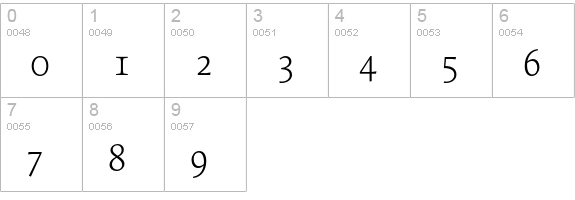
Proforma-Light is a refined, elegant variant in the Proforma typeface family \xE2\x80\x94 well suited to elegant body text, refined sub-headings, and luxury branding.
Introducing Proforma-Light font, a sleek and modern typeface that exudes elegance and sophistication. With its clean lines and minimalist design, Proforma-Light is the perfect choice for projects that require a contemporary touch. This versatile font is ideal for both display and body text, making it suitable for a wide range of design applications. What sets Proforma-Light apart is not just its stylish aesthetic, but also the fact that it is available for free download at FontsMarket.com. This means that you can effortlessly add this high-quality font to your collection without any cost. Whether you're working on a branding project, website design, or print materials, Proforma-Light is sure to elevate your work with its timeless appeal. Download Proforma-Light today from FontsMarket.com and discover the endless possibilities this font has to offer. Elevate your designs with this elegant and versatile typeface that is both free and easily accessible for all your creative needs.